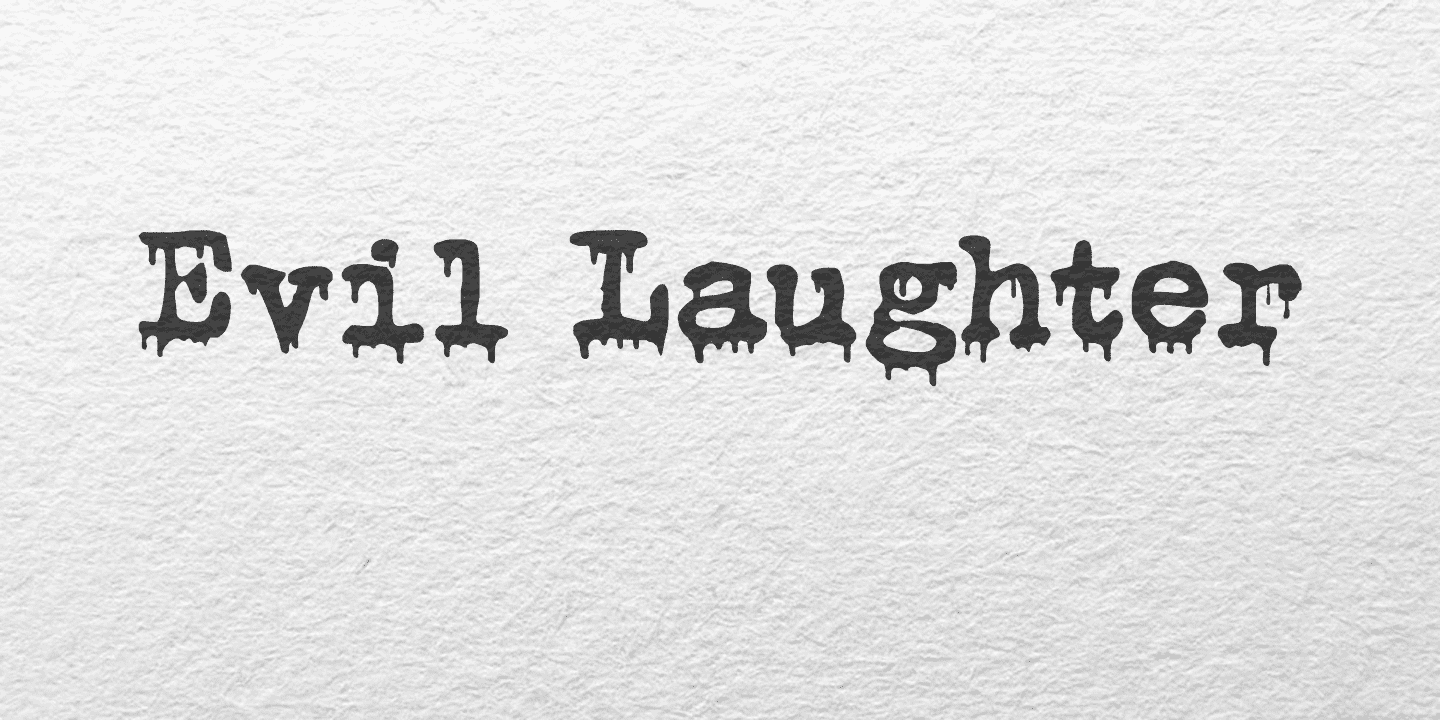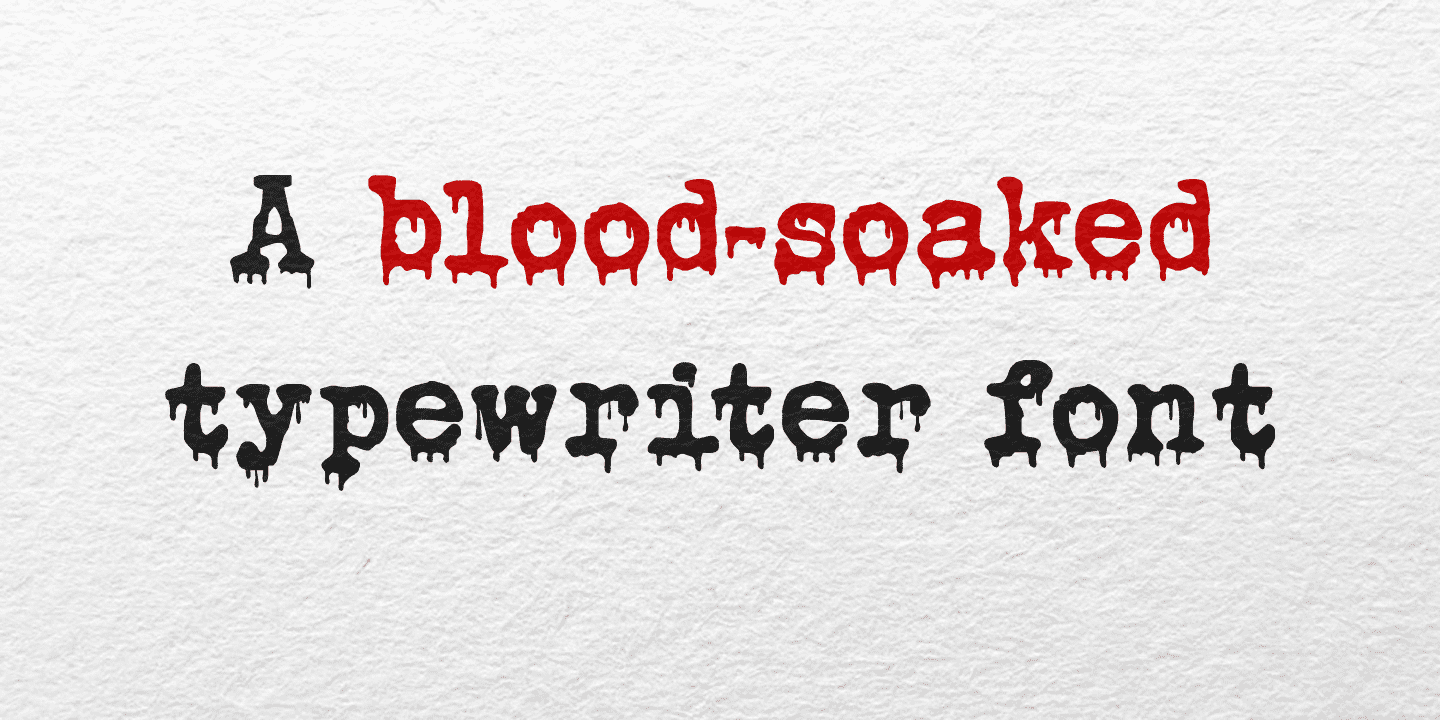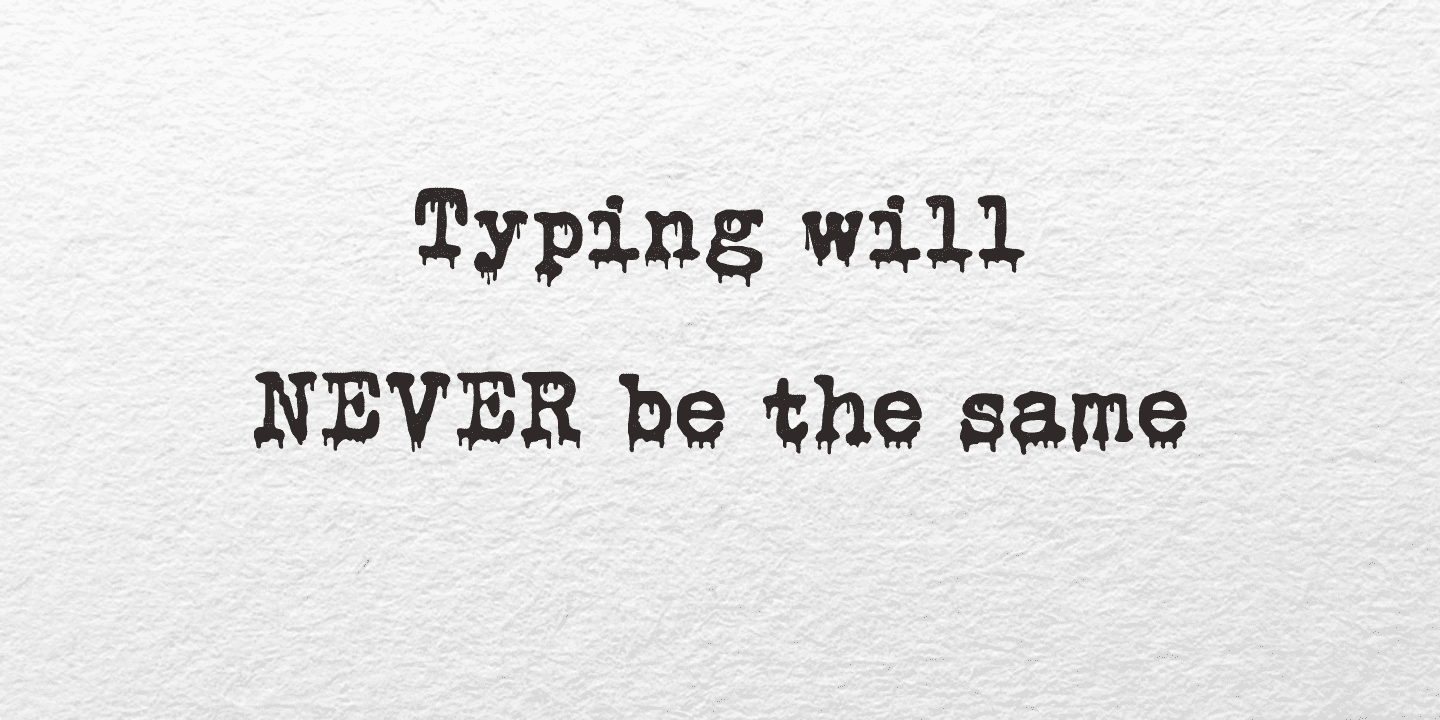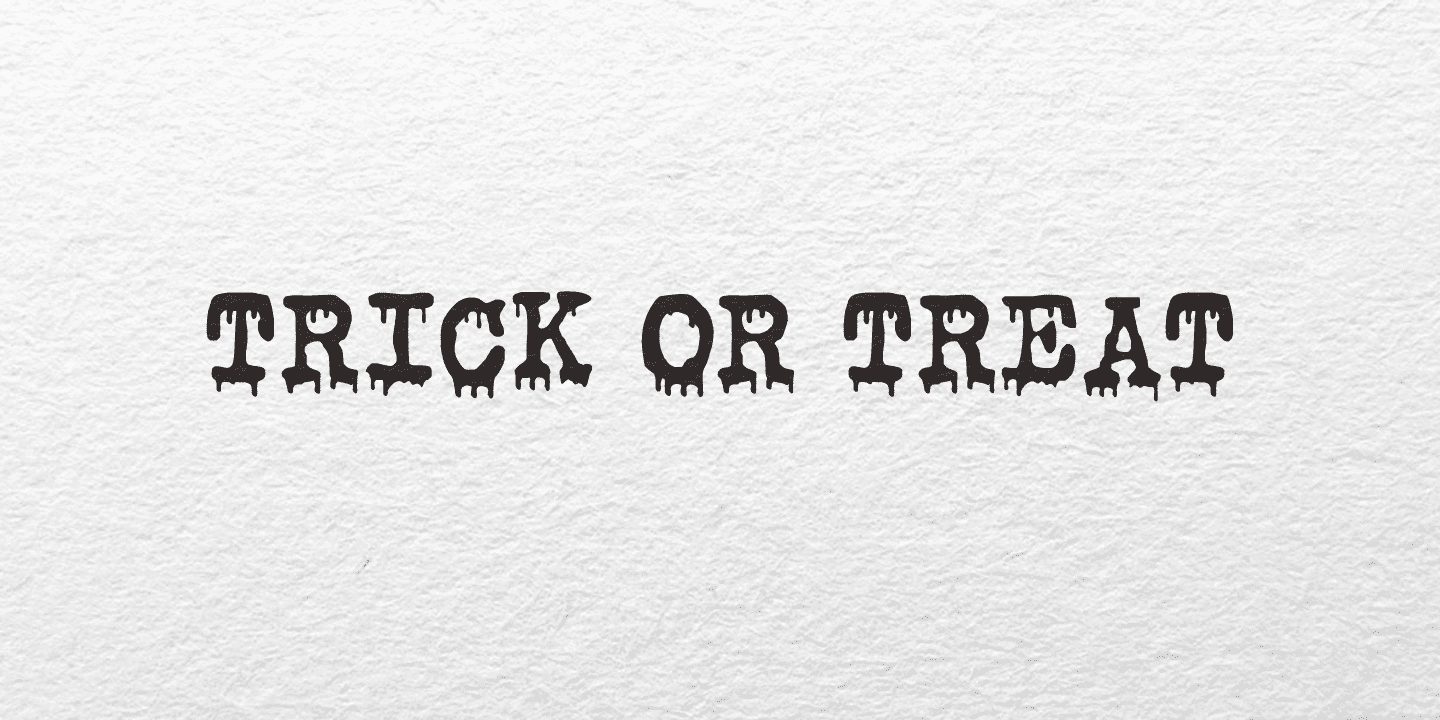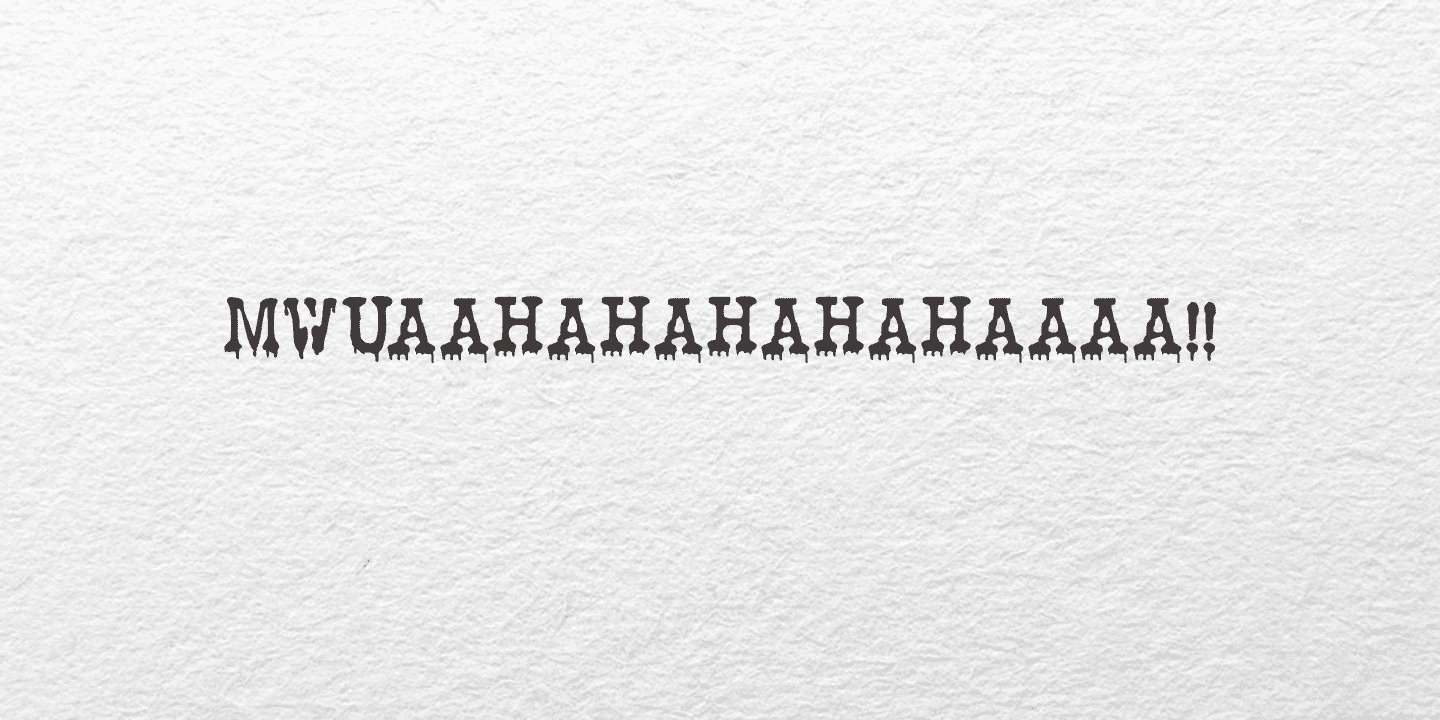
I am working on my Halloween font collection and realised I did not have a ‘blood drip font’. So, I bought a second hand typewriter and typed all the glyphs. Then I made the blood drips using syrup, paper and gravity!
The result is a halloween font with a twist!